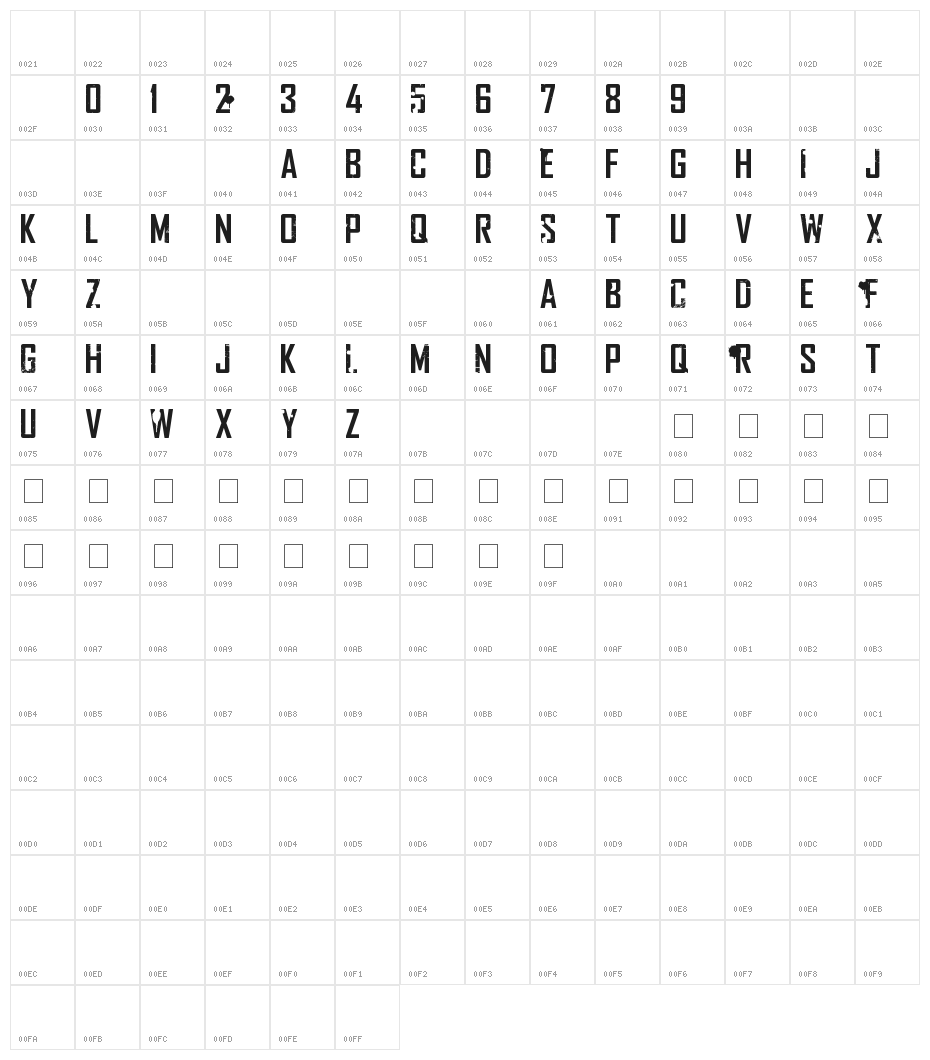
Rocketship Town Font
Rocketship Town Description
This font features a bold, distressed style with a rugged, worn appearance. The characters are uppercase and numerals, each exhibiting a unique texture that suggests a vintage or industrial feel. The edges are sharp and geometric, yet the distressed effect adds an organic, weathered look. This combination of boldness and texture makes it ideal for projects that require a strong, impactful visual presence. The font's design is reminiscent of old machinery or signage, giving it a timeless, yet edgy appeal.
| Proposed Projects | Ideal for posters, album covers, branding for industrial or vintage-themed products, and any design needing a strong, impactful typeface. |